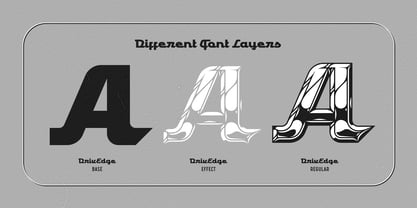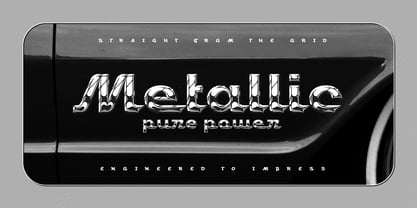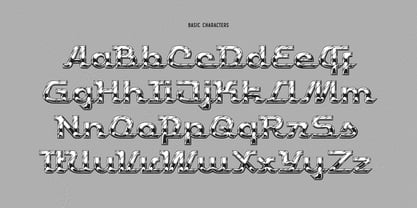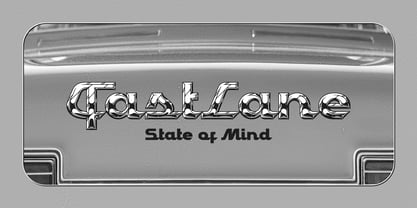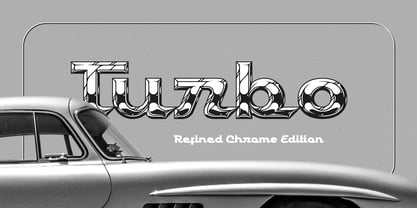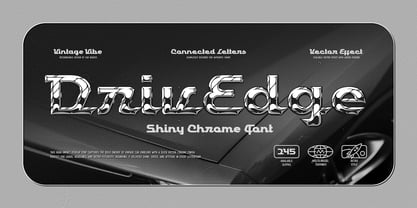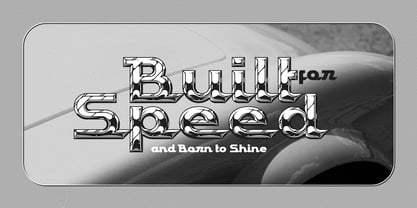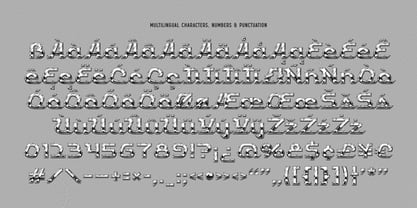
DrivEdge
by Gleb Guralnyk
Hi, introducing a shiny chrome font — DrivEdge. This high-impact display font captures the bold energy of vintage car emblems with a slick vector chrome finish. perfect for logos, headlines, and retro-futuristic branding, it delivers shine, speed, and attitude in every letterform.
DrivEdge has three fonts: base shape, chrome effect layer and a combined regular font. Also it offers multilingual support — check out the screenshot to see the full character set!
A lot of my fonts inherits vintage graphic styles but nevertheless I don't like to stick to one theme for a long time. That's why I'm trying to create fonts in different styles and from different eras, from old gothic calligraphic to modern handwritten scripts, from medieval antique to minimalist sans-serif typefaces. It's always interesting to design something new, and expand my skills in novel font design directions.